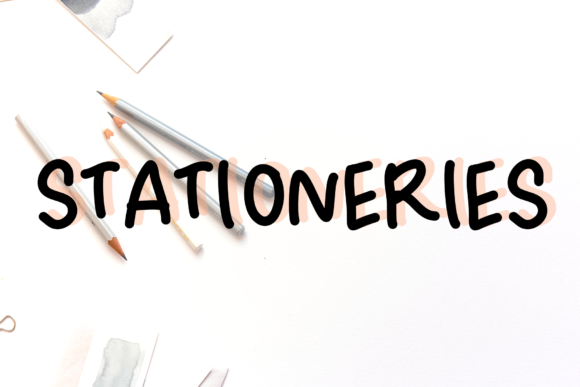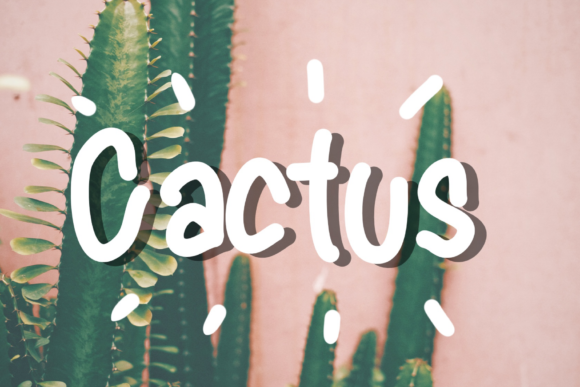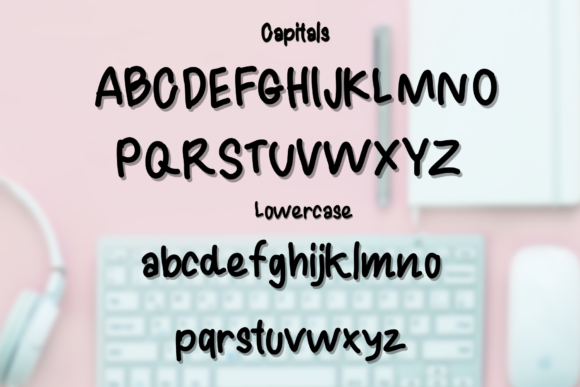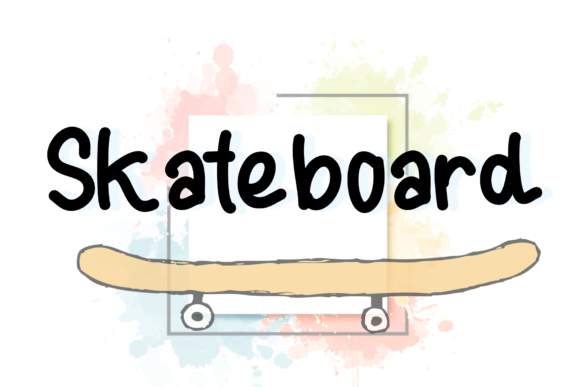
Happy Cute Font
About Happy Cute Font
Happy Cute is a whimsical handwritten font. This enchanting typeface will turn any creative idea into a true standout. Get creative with its childlike playfulness, and use it to brighten up any kids and school project!